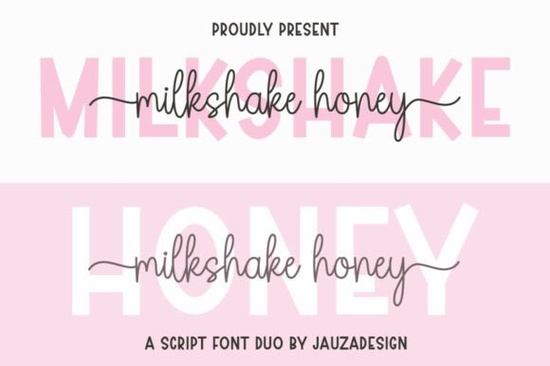
If you're looking for a handwritten font duo that feels both polished and personal like something you’d choose for a wedding invite, a small-batch soap label, or a cozy lifestyle blog header you’ll appreciate how Milkshakehoney Font balances structure and softness. It’s not overly ornate, but it’s never plain. The pairing of a tall, clean all-caps sans serif with a relaxed, modern script gives you flexibility without compromise ideal if you design for print-on-demand, craft fairs, or local boutiques.
How does Milkshakehoney Font actually work in real projects?
The serif part is minimal but confident great for headlines, shop names, or product titles where clarity matters. Think “Honey & Thyme Bakery” stamped on a kraft bag, or “Small Batch Co.” centered on a candle jar. The script half flows gently, with natural rhythm and subtle bounce not too bouncy, not too stiff. It works beautifully for short quotes (“slow mornings”, “hand-poured”, “made with care”), monograms, or accent lines beside photos.
Because it’s PUA encoded, you get full access to alternate glyphs, ligatures, and stylistic sets right in your design app no need for complex OpenType panels. In Illustrator or Affinity Designer, just type normally and swap characters using the Glyphs panel. In Canva, some alternates appear as separate font styles (check the dropdown when you select the script). This makes customizing feel intuitive, not technical.
Where does this font fit alongside other popular duos?
Like the Disney-inspired duo fonts, Milkshakehoney leans into charm and personality but with quieter, more grounded energy. It’s less “magic castle” and more “sunlit kitchen table.” If you’ve used Farmhouse Breakfast for rustic charm, Milkshakehoney offers a slightly more refined alternative still warm, but with cleaner lines and softer contrast. For seasonal work, it pairs well with gentle tones and botanical motifs, much like the thoughtful styling you’ll see in December-themed designs, though it’s not tied to any single season.
It shares the dessert-friendly warmth of chocolate-themed fonts, especially in packaging contexts imagine “Vanilla Bean Caramels” in the serif, with “handcrafted since 2021” in the script below. And for weddings, it sits comfortably beside wedding-focused script fonts, offering more typographic contrast than single-style options while keeping things legible and elegant.
It’s designed with practical use in mind: no excessive flourishes that break at small sizes, no overlapping letters that cause spacing headaches, and no hidden characters that vanish in basic apps. That means it performs well across platforms from Procreate lettering to Cricut cut files to Shopify store banners.
Small business owners who handle their own branding (bakers, florists, herbalists) will find it easy to use for consistent labels, social posts, and email headers. Print-on-demand sellers appreciate how well it scales whether it’s on a 5×7 greeting card or a 24×36 wall art print. Crafters who hand-letter first and digitize later often use the script as a reference for rhythm and flow. And designers building brand kits for clients love having a ready-made duo that already solves hierarchy and tone.
It’s not meant for dense body text or technical documentation but then, most script-sans duos aren’t. Its strength is in moments of intention: a name, a tagline, a quiet detail that says this was made thoughtfully.
- ✅ You need two complementary fonts one structured, one expressive for branding or stationery
- ✅ You prefer clean lines over heavy embellishment
- ✅ You want built-in alternates and ligatures without needing advanced typography knowledge
- ❌ You’re setting long paragraphs or legal disclaimers in script (stick to the sans for those)
If those match up, Milkshakehoney Font is ready to help you say what matters clearly, warmly, and without fuss.